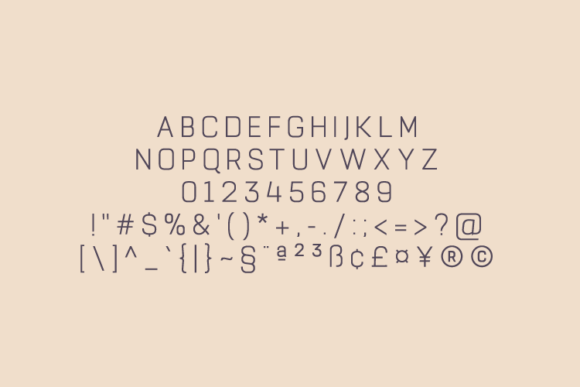
Introduction to Gercoff Font
As a designer, you’ve probably found yourself stuck on a creative project, staring at a blank canvas, and wondering where to start. The blank page can be intimidating, but the right design resource can make all the difference. For those seeking a timeless and elegant touch, the Gercoff Font is an excellent choice.
With its clean and simple vintage sans serif design, Gercoff Font adds a touch of sophistication to any project. Whether you’re working on a vintage logo design, a header, or a small amount of text, this high-quality font is perfect for adding a classic feel to your work. And the best part? It’s available for free download, making it an accessible and valuable resource for designers of all levels.
Key Features of Gercoff Font
- High-quality font suitable for various creative projects, including graphic design, digital art, and typography.
- Unique design with a transparent background, allowing for easy layering and customization in design software.
- Comes in a range of sizes, from 12pt to 72pt, making it versatile for use in different contexts.
- High-resolution font (300 DPI) suitable for print and digital applications.
- Perfect design resource for designers and artists seeking a distinctive and modern look.
- OpenType features, including ligatures, swashes, and stylistic sets, add an extra layer of creativity to your design projects.
Honest Review: Gercoff Font
I recently stumbled upon the Gercoff Font and I must say it’s been a great addition to my design resources. The high quality of this font is evident in its crisp and clean lines, making it perfect for a variety of creative projects.
- ✨ Great for creating modern and sleek designs
- ✨ Works well for both digital and print projects
- ✨ Features a transparent background, allowing for easy customization
- ⚠️ Limited character set, which may not be suitable for extensive writing projects
- ⚠️ Not ideal for projects that require a wide range of font styles
Overall, I’m impressed with the Gercoff Font and would highly recommend it to designers looking for a high-quality, free download. While it may have some limitations, it’s a great resource to have in your design arsenal.
Tips for Getting the Most Out of Gercoff Font
For optimal use, pair the Gercoff Font with other high-quality design elements, such as graphics and images. Experiment with different font sizes and styles to create visually appealing designs. The transparent background of the font also makes it easy to use in combination with other design elements.
The Gercoff Font is commonly used in creative projects, such as logos, brochures, and business cards. Its high quality and transparent background make it perfect for detailed designs, and its free download makes it easily accessible for designers of all levels.
Q: Is the Gercoff Font a high-quality design resource?
Yes, the Gercoff Font is a high-quality design resource, carefully crafted to provide a unique and visually appealing aesthetic. With its transparent background and crisp lines, it’s perfect for adding a touch of sophistication to your designs.